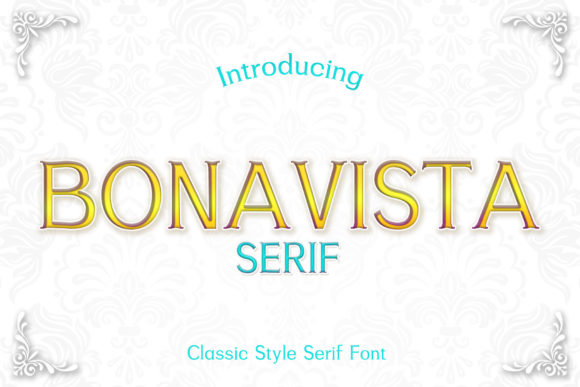
Prepare yourself to embark on a captivating typographic journey with Bonavista Font, the epitome of sophistication and charm in the realm of serif fonts. Created by the visionary minds at numnim, Bonavista exudes an air of understated elegance that effortlessly elevates any design project to new heights of visual appeal.
Step into a world where typography meets artistry, where each letterform is meticulously crafted to convey a sense of timeless beauty and unwavering boldness. Bonavista's inherent flexibility allows it to adapt seamlessly to an incredibly diverse range of creative endeavors, making it the perfect font for those seeking unparalleled versatility.
Unleash your imagination and let Bonavista's graceful curves and sharp edges intertwine harmoniously with your words, creating a visual symphony that captivates and engages your audience. Whether you're crafting a travel brochure that transports readers to faraway lands, designing a wedding invitation that exudes timeless romance, or creating a logo that leaves a lasting impression, Bonavista is your perfect font companion.
Experience the transformative power of typography as Bonavista effortlessly elevates your designs, imbuing them with a sense of sophistication and visual intrigue. Its timeless appeal ensures that your creations will stand the test of time, leaving an enduring legacy of beauty and elegance.